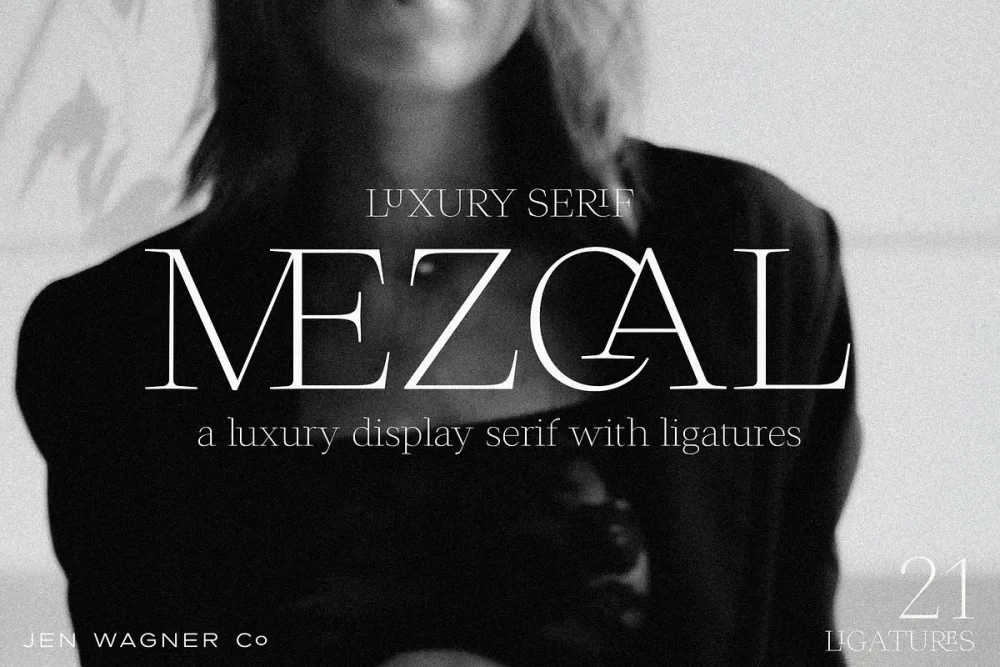
Mezcal is a stunning modern serif font designed to give your text a unique, custom-crafted look. Featuring 21 stylistic ligatures, Mezcal transforms simple wordmarks into professional, logo-quality designs — perfect for branding, editorial, and high-end packaging.
- Uppercase & lowercase letters
- Numbers & punctuation
- 21 beautiful ligatures for enhanced customization
- Supports Western & Central European languages